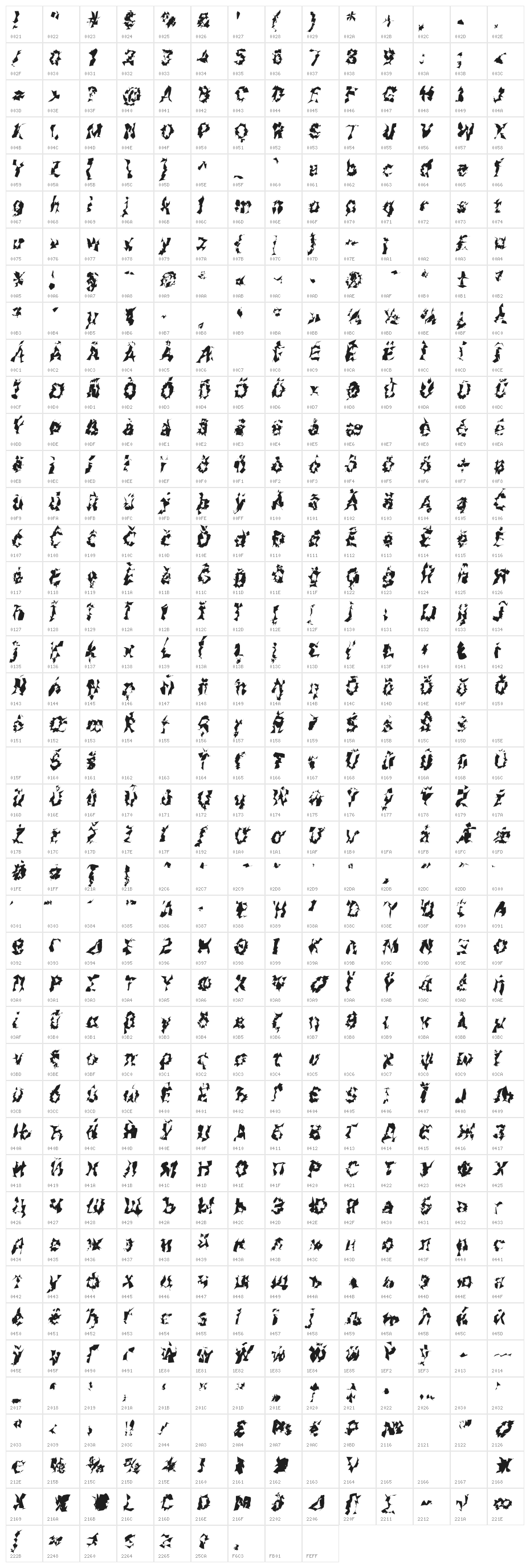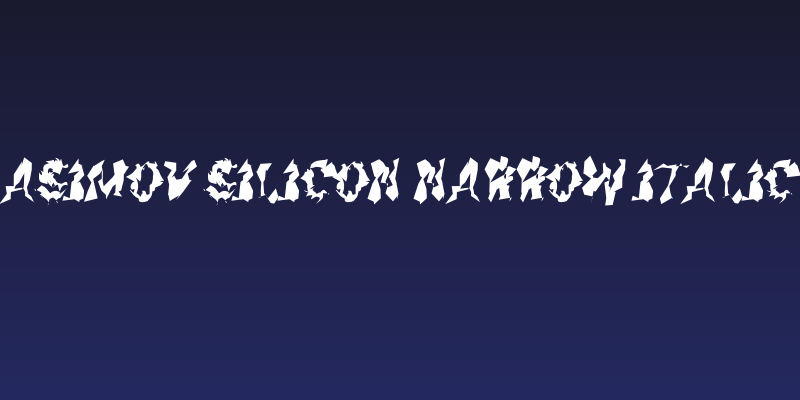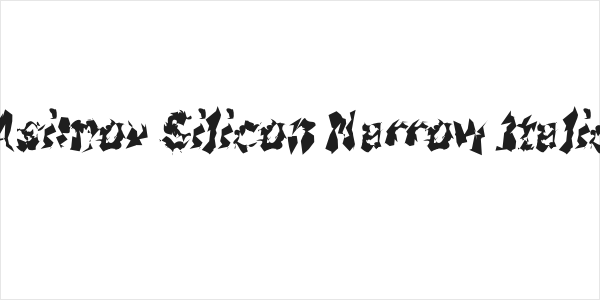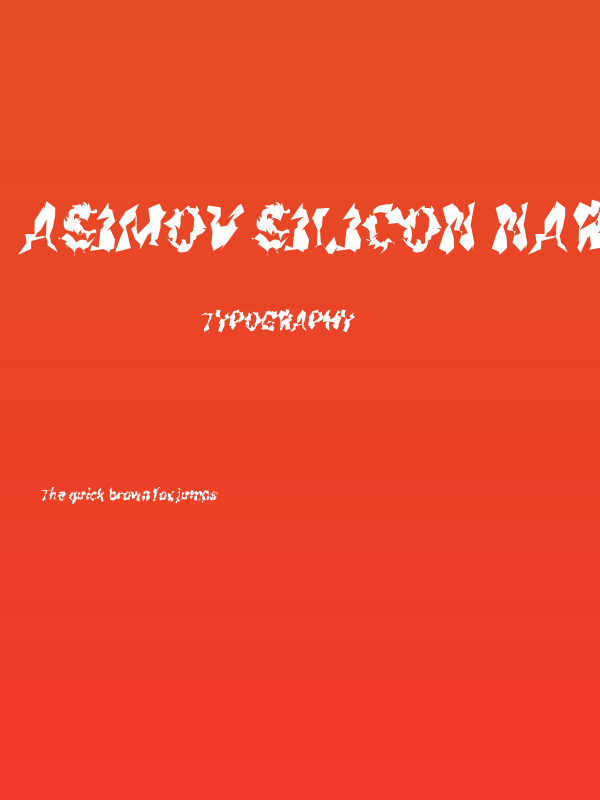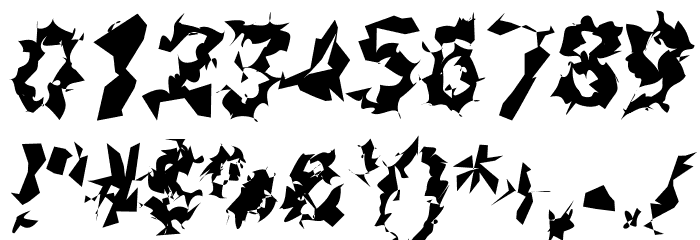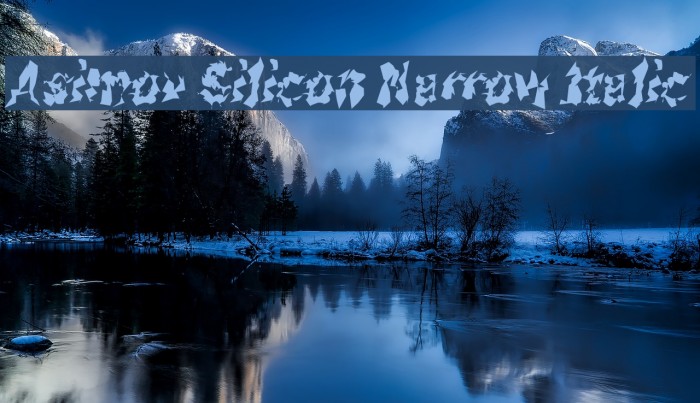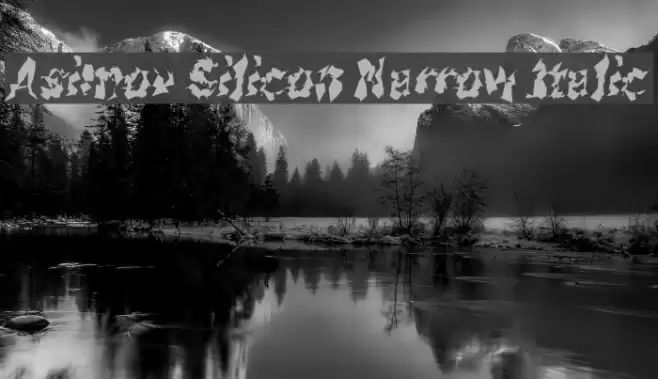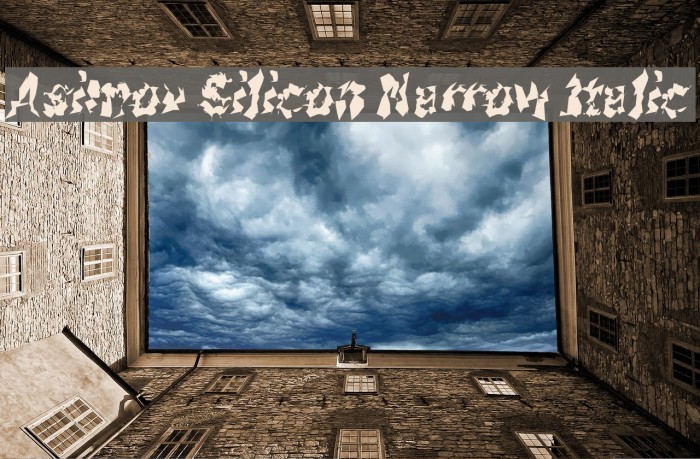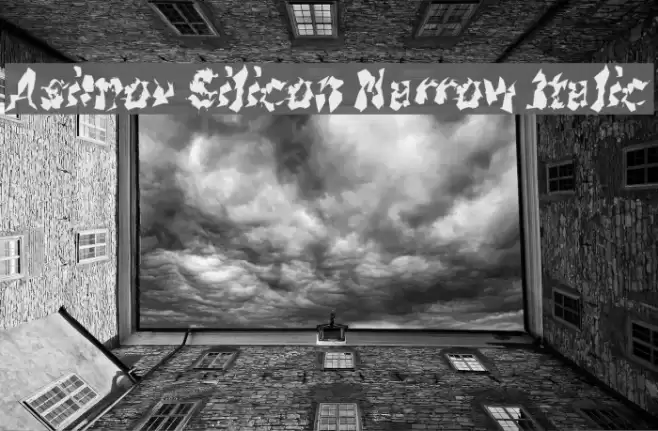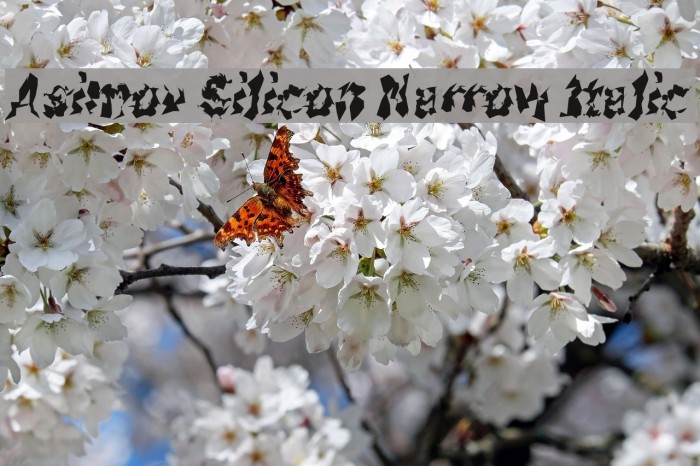
Asimov Silicon Narrow Italic Font
Asimov Silicon Narrow Italic Description
This font features a highly stylized, jagged design that gives it a futuristic and edgy appearance. The characters are sharply angular, with irregular, fragmented edges that create a sense of movement and energy. The overall look is chaotic yet controlled, making it ideal for projects that require a bold and unconventional aesthetic. The uppercase and lowercase letters maintain a consistent style, while the numbers and special characters are equally dynamic and visually striking. This font is perfect for creating attention-grabbing headlines or logos that need to stand out.
| Overall Style | Futuristic, Edgy |
| Proposed Projects | Ideal for sci-fi themed posters, video game titles, edgy branding, and unique logo designs. |